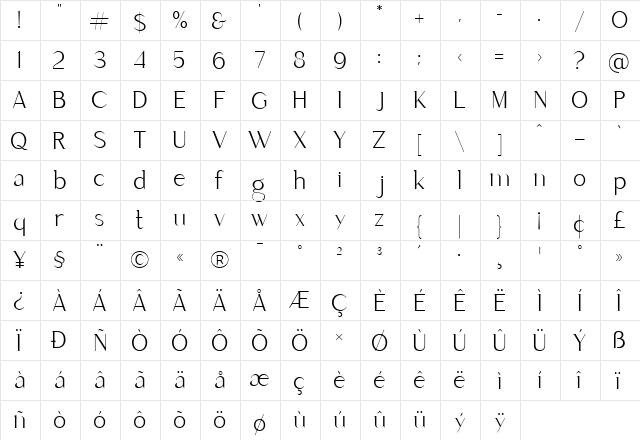
Saudagar Regular
| Foundry | Sensatype Studio |
| Designer | Zamroni Hamzah |
Design Context for Saudagar Typeface
Saudagar takes a measured approach to typography — its balanced proportions and neutral character make it a reliable workhorse for both digital and print work.